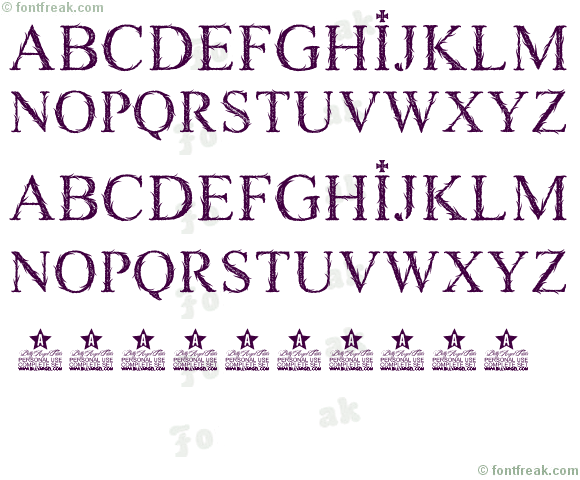
GRAVEDIGGER PERSONAL USE
About GRAVEDIGGER PERSONAL USE
The GRAVEDIGGER PERSONAL USE font, designed by Billy Argel Fonts, is a striking display typeface that captures attention with its unique character. This font features a decorative style that embodies a gothic aesthetic, making it perfect for projects requiring an air of mystery or the macabre. The strokes exhibit a medium weight with a slight unevenness that adds to its handcrafted feel. The contrast between the thick and thin lines creates an engaging visual rhythm, while the spacing is deliberately tight, enhancing its bold presence.
This font finds its best applications in themes that evoke drama and intensity. It's ideal for creating movie posters, particularly for horror or thriller genres, where the text can convey an ominous tone. Additionally, GRAVEDIGGER PERSONAL USE is a great choice for Halloween event flyers, helping to set the mood with its eerie style. It can also be employed in restaurant menus that focus on a spooky or gothic theme, adding a distinctive flair. Furthermore, graphic designers can utilize this font for album covers or merchandise related to music genres like heavy metal or rock, where a bold and edgy font is essential.
The GRAVEDIGGER PERSONAL USE font free download stands out due to its captivating style that merges elegance with an eerie charm. This combination makes it not only versatile but also memorable, ensuring that any design using this typeface leaves a lasting impression.